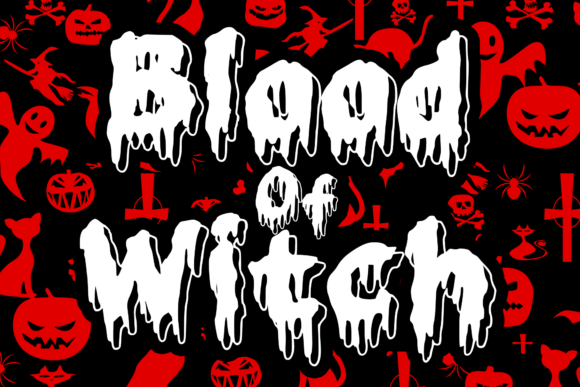
Unleash the Horror: A Deep Dive into the Blood of Witch Font
I’ll never forget the time I was working on a Halloween-themed project for a client, and I just couldn’t find the right font to capture the spooky essence. The design was supposed to be creepy, eerie, and attention-grabbing, but my font choices were falling flat. That was until I stumbled upon the Blood of Witch font. This blood-dripping display font has been a game-changer for my horror and Halloween-themed designs, and I’m excited to share my experience with you.
Here’s what I love about the Blood of Witch font:
- ✨ Unique and eye-catching design: The blood-dripping effect is unlike anything I’ve seen before, and it instantly adds a horror touch to any design.
- ✅ Versatile: This font can be used for a wide range of projects, from t-shirts and clothing to scary book designs, Halloween party materials, greeting cards, stickers, posters, and banners.
- 🔥 High-quality: The font is well-crafted, with crisp and clean lines that look great even at large sizes.
Now, I’m not saying it’s perfect. Here are a few quirks to keep in mind:
- 🤔 Limited use cases: While the font is versatile, it’s primarily designed for horror and Halloween-themed projects. It might not be the best fit for other types of designs.
- ⚠️ Glyph limitations: Some users have reported that the font could benefit from more glyphs, especially for non-English languages.
The Designer Inspiration Behind Blood of Witch
While I couldn’t find any direct information on the designer’s inspiration, I like to imagine that the creator of Blood of Witch was influenced by classic horror movies, creepy old mansions, and the spooky atmosphere of Halloween. The font’s unique design seems to capture the essence of a haunted night, making it perfect for any horror-themed project.
| Font Name | Blood of Witch Font |
| Author | MVMET |
| What type of projects is Blood of Witch best suited for? | Horror and Halloween-themed projects, such as t-shirts, scary book designs, party invitations, greeting cards, stickers, posters, and banners. |
With its unique design and versatility, Blood of Witch is sure to become a go-to font for horror and Halloween-themed projects. Whether you’re a designer, crafter, or creative hobbyist, this font is sure to add a spooky touch to your creations. So, don’t be afraid to get creative and experiment with Blood of Witch – your designs will thank you!